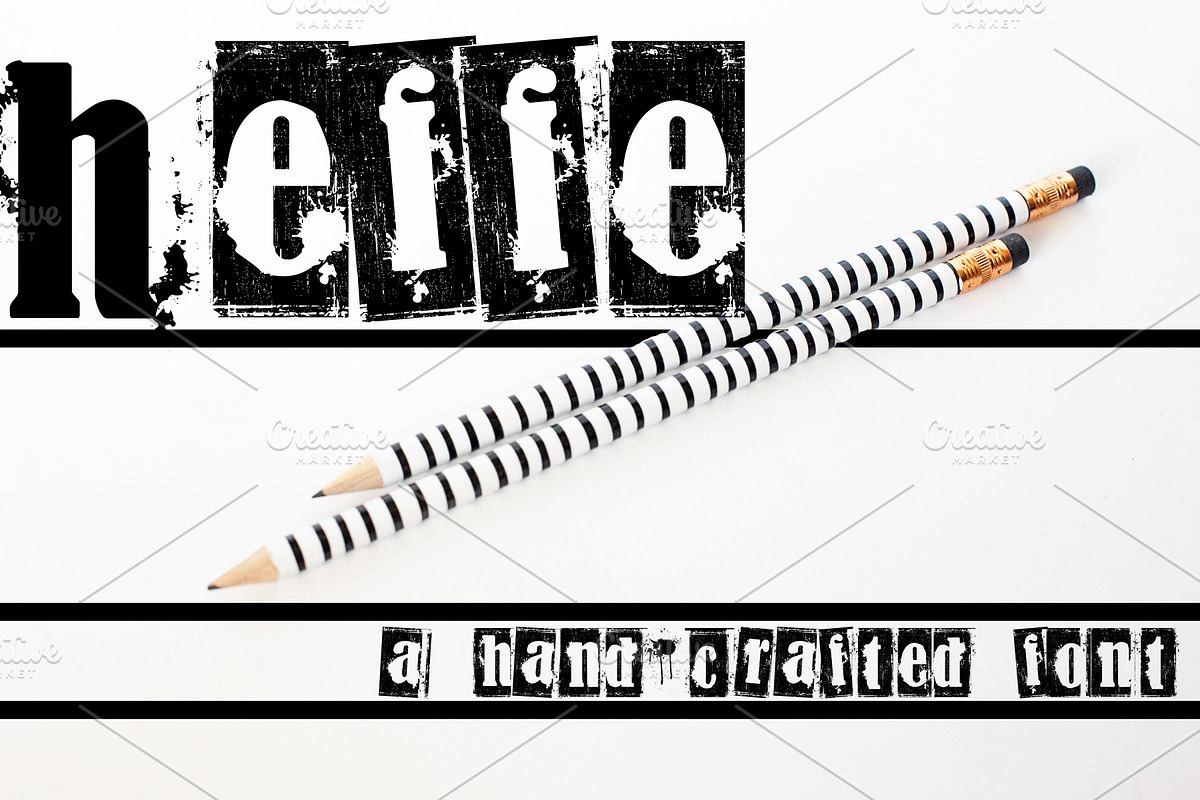
HEFFE Hand Crafted Font Free Download
Please note, to use this font for commercial purposes, you must purchase the full version. HEFFE is a unique, handcrafted font that brings a personal, artistic touch to your designs. With its bold strokes and rustic charm, this font is perfect for logos, branding, invitations, and any creative project that needs a raw, organic feel. Whether you're designing for a handmade product, a vintage brand, or a rustic-themed event, HEFFE adds authenticity and character to your work. Test it out and enjoy free download access for personal use. Experience the handcrafted beauty of HEFFE Hand Crafted Font Free Download before purchasing the commercial license. Add a unique, artistic flair to your designs with HEFFE.